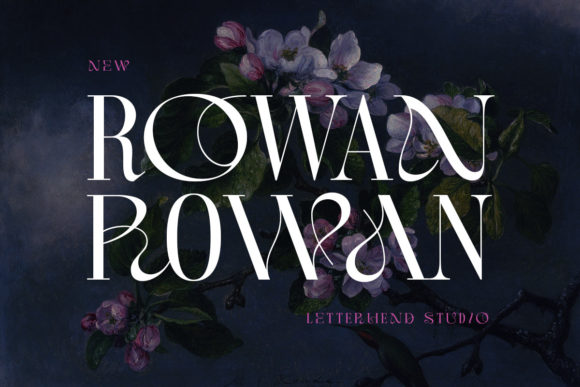
Journey into a world of timeless beauty and sophistication with Rowan Font, a serif masterpiece crafted with artistry and elegance. This captivating font family exudes an aura of refinement, making it the perfect choice for creating logos that demand attention. Its precisely crafted letters, adorned with delicate curves and striking serifs, will elevate your designs to new heights of visual appeal.
Rowan Font is not just another font; it's an expression of your discerning taste. Its distinct letterforms dance harmoniously on the page, evoking a sense of timeless elegance. Whether you're designing a logo for a luxury brand, a high-end fashion label, or a boutique hotel, Rowan Font will elevate your creations with its inherent grace and sophistication.
Imagine your logo gracing the entrance of an exclusive members' club, its refined lines hinting at the exclusivity and prestige within. Or picture it adorning the packaging of a premium product, exuding an air of opulence and quality. Rowan Font has the power to transform your designs into symbols of luxury and prestige, leaving a lasting impression on your audience.
But Rowan Font's elegance is not limited to logos. Its versatility extends to a wide range of creative projects, from wedding invitations and stationery to posters and marketing materials. Its ability to add a touch of sophistication and refinement to any design makes it a favorite among designers seeking to create truly memorable and impactful visual communications.
With Rowan Font, you're not just choosing a font; you're choosing a partner in your quest for design excellence. Its timeless beauty and versatility will accompany you on your creative journey, enabling you to craft designs that speak volumes about your brand's personality and values. Embrace the allure of Rowan Font today and unlock the door to a world of elegance and sophistication in your designs.